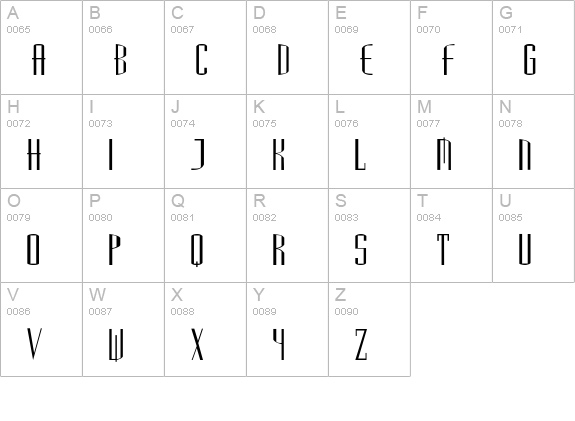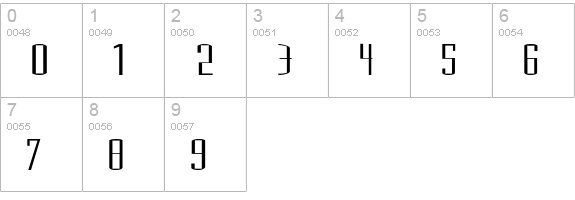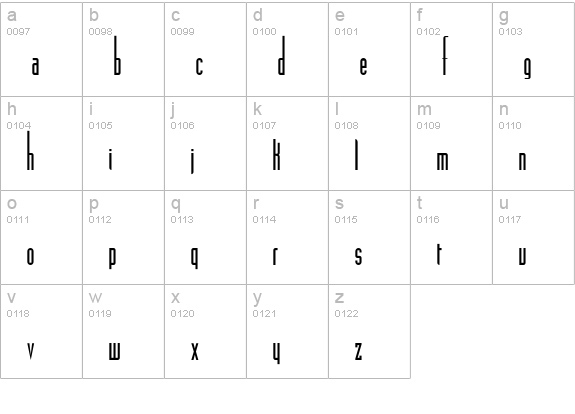
Madrid2Exp Font Details
Madrid2Exp font is a sleek and modern typeface that exudes elegance and sophistication. Its clean lines and sharp edges make it perfect for a wide range of design projects, from branding and logos to headlines and posters. This versatile font captures the essence of Madrid, the vibrant capital city of Spain, and brings it to life on the page. One of the standout features of Madrid2Exp font is that it is available for free. Yes, you read that right - you can download this unique and eye-catching font without spending a dime. Whether you are a professional designer looking to add a touch of Madrid's charm to your work or a hobbyist looking to experiment with different fonts, Madrid2Exp font is the perfect choice. To get your hands on this fantastic font, simply head to FontsMarket.com. There, you can easily find and download Madrid2Exp font, along with a wide range of other high-quality fonts. FontsMarket.com is a trusted platform that provides a vast collection of fonts, ensuring that you will always find the perfect typeface to meet your design needs. So why wait? Start incorporating the essence of Madrid into your designs today with the freely available Madrid2Exp font. Its clean and modern aesthetic will elevate your work and captivate your audience. Download it now and let your creativity soar.